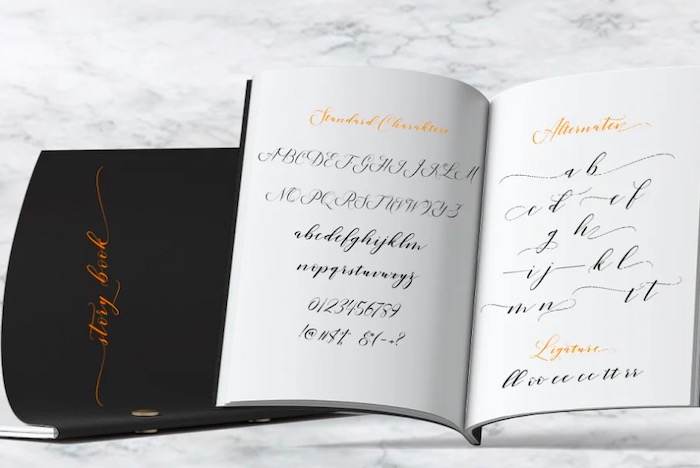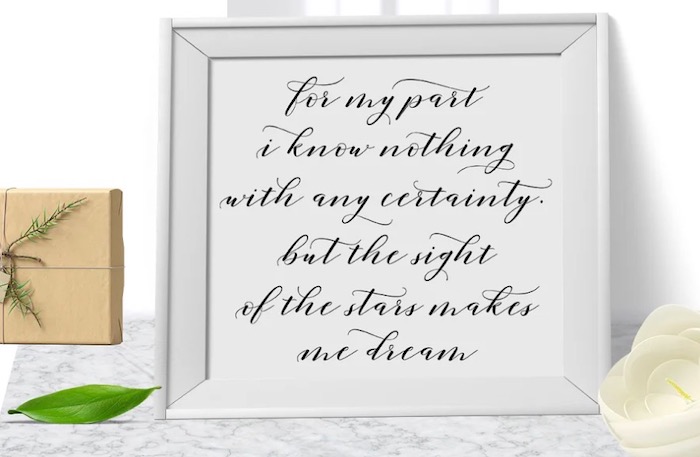
Lucinda Script Handwritten Font is a simple handwriting typeface from designer Areatype. It has a luxurious and modern calligraphy style with gorgeous swashes that is suitable for many designs.
Lucinda Script Handwritten Font